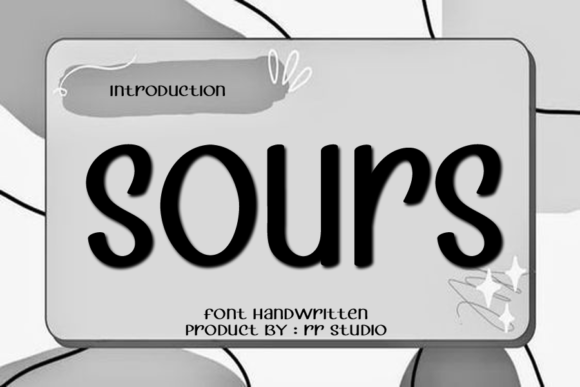
Sours Font
Discover Sours Font, a captivating script font perfect for adding a touch of charm and warmth to your creative projects. Crafted by the skilled designers at RR Studio, this font exudes a casual and friendly vibe, making it an ideal choice for a wide range of applications
Indulge in the versatility of Sours Font, letting your imagination soar as you craft unique greeting cards, design eye-catching digital content, or create unforgettable presentations. Its graceful curves and playful strokes bring a touch of whimsy and elegance to any project, transforming it from ordinary to extraordinary.
Whether you're a seasoned designer or just starting your creative journey, Sours Font is an essential tool that will elevate your designs to new heights. Embrace its versatility, let your creativity flow, and experience the joy of creating something truly special.